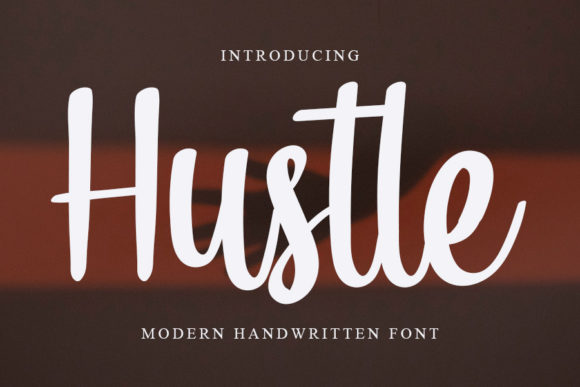
Introducing Hustle Script: A Dashing Handwritten Font for Your Creative Needs
Discover the captivating Hustle Script font, a handwritten treasure meticulously crafted by K_IN Studio. This extraordinary font seamlessly blends classic calligraphy with a refreshing contemporary touch, resulting in a masterpiece that exudes both sophistication and modernity.
Are you searching for a font that captures the essence of modern elegance and effortless charm? Look no further, for Hustle Script is here to make your design dreams a stunning reality. With its graceful curves, vibrant energy, and impeccable legibility, this script font is the perfect companion for logos, branding projects, social media graphics, and any creative endeavor that calls for a touch of personal flair.
Get ready to infuse your designs with a dash of captivating allure. Hustle Script's dynamic strokes and authentic handwritten feel will captivate your audience, leaving them utterly smitten. Say goodbye to ordinary and hello to extraordinary as you witness the transformative power of this remarkable font.
Dive into a world of creativity and let Hustle Script guide you through a realm of endless possibilities. Whether you're a seasoned designer or just starting your artistic journey, this script font will empower you to create designs that resonate with your audience and leave an unforgettable impression.
With Hustle Script, you'll not only elevate your designs but also embark on an adventure of self-expression. Unleash your inner artist and watch as your creations come alive, exuding a charm that transcends the ordinary.
So, are you ready to take your designs to new heights of visual brilliance? Embrace the power of Hustle Script and let your creativity soar. Its beauty and versatility will ignite your passion and bring your artistic vision to life.